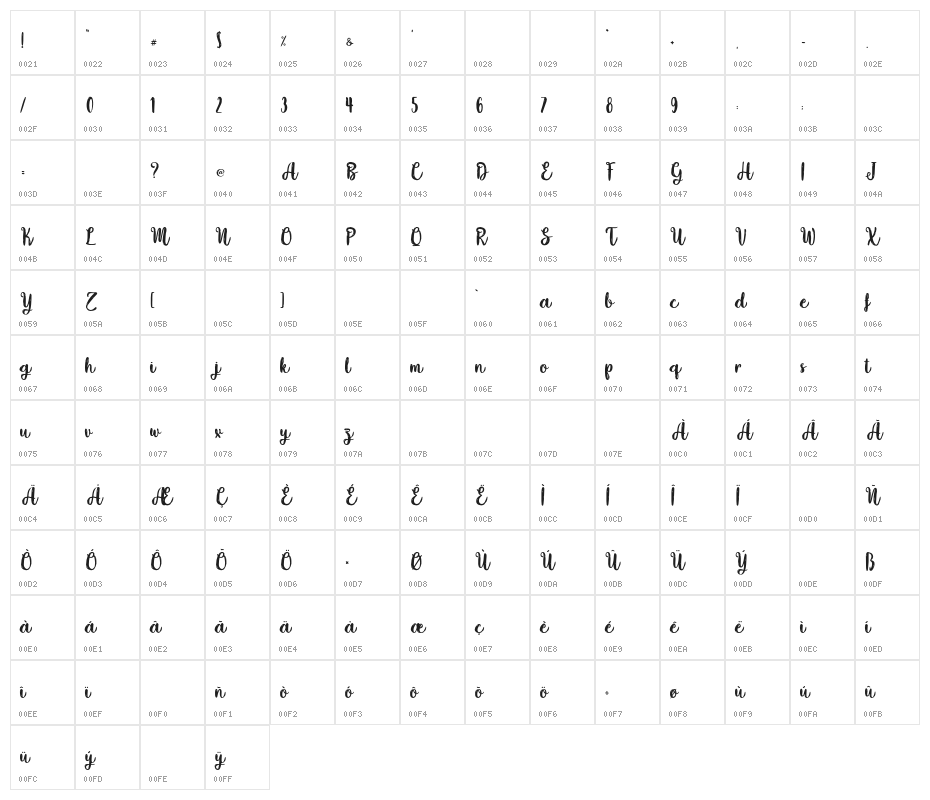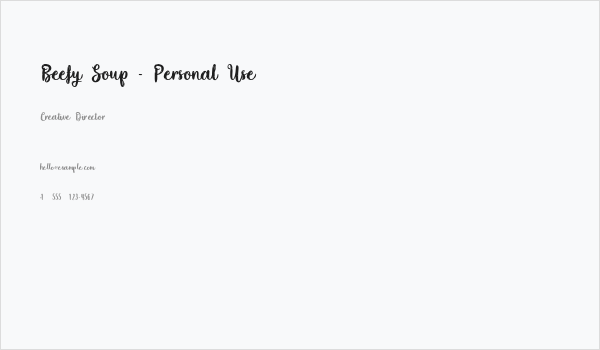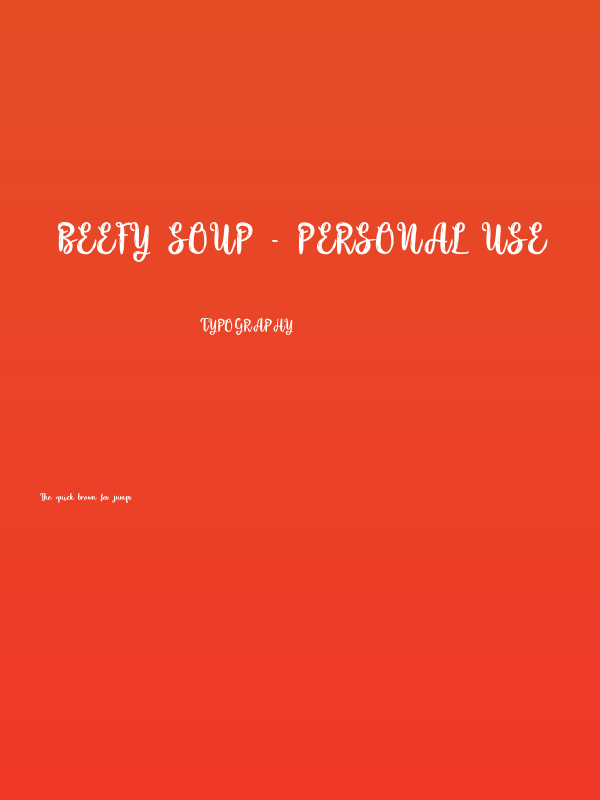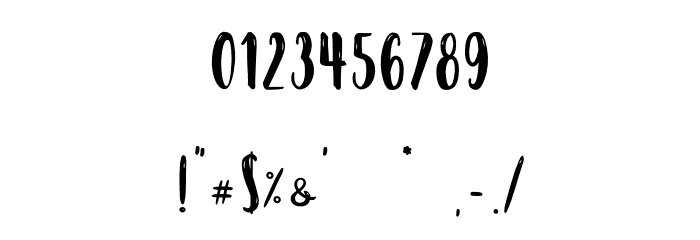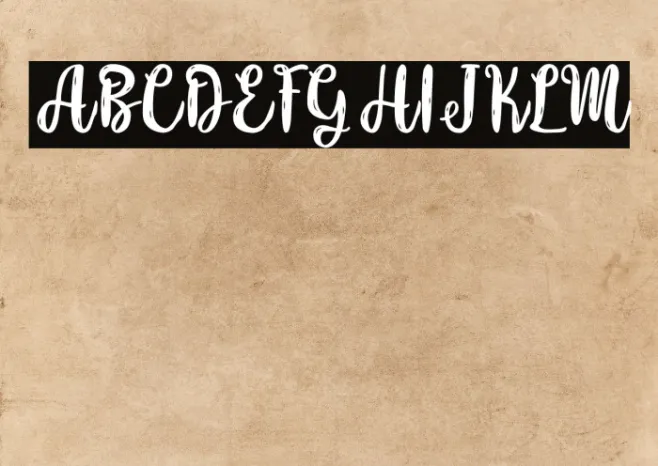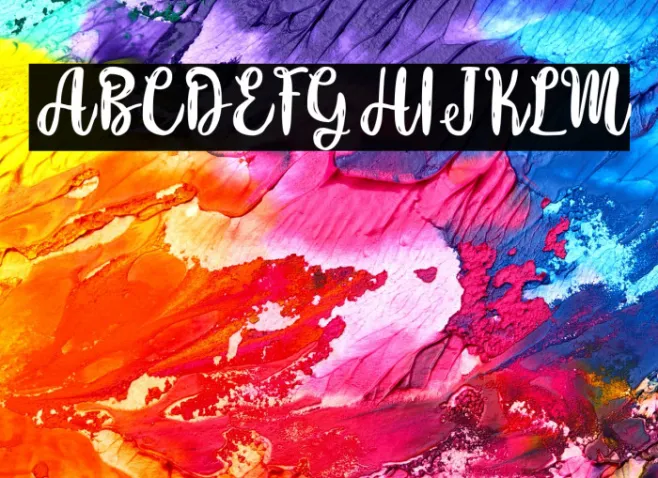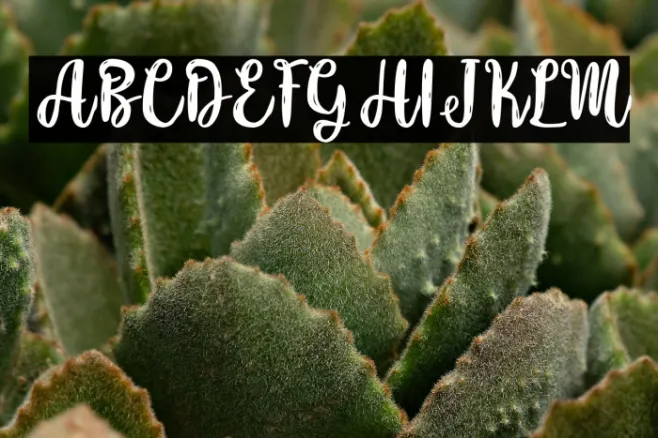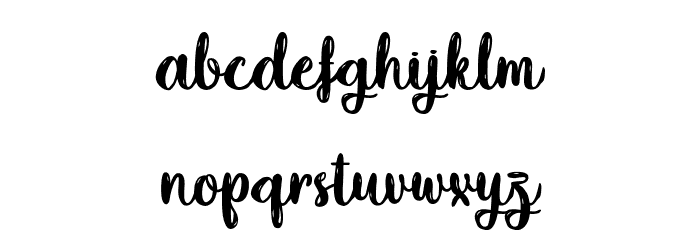
Beefy Soup - Personal Use Font
Beefy Soup - Personal Use Description
This font features a playful and bold script style with a hand-drawn appearance. The letters are characterized by their thick, flowing strokes and slightly irregular shapes, giving them a casual and friendly feel. The uppercase letters maintain a consistent height, while the lowercase letters have a charming, whimsical quality. The numbers and special characters are designed to match the overall style, ensuring a cohesive look. This font is ideal for projects that require a personal touch, such as invitations, greeting cards, or branding for creative businesses.
| Proposed Projects | Ideal for invitations, greeting cards, branding for creative businesses, and playful designs. |